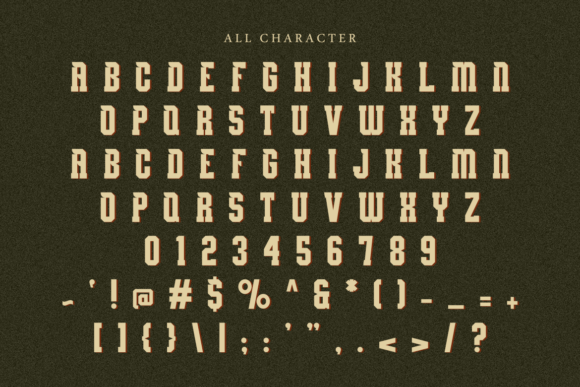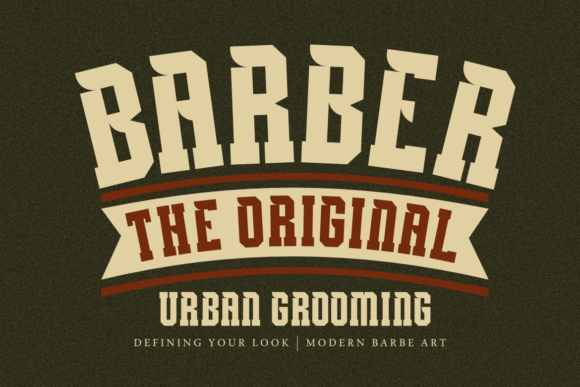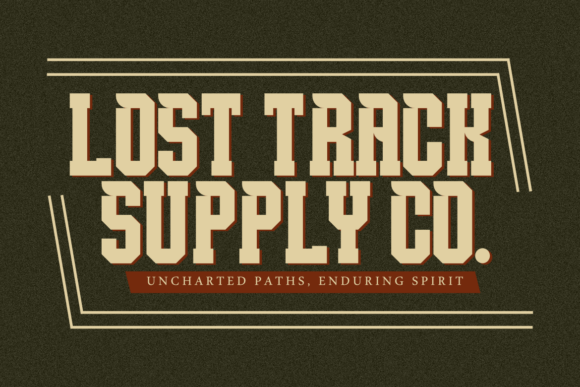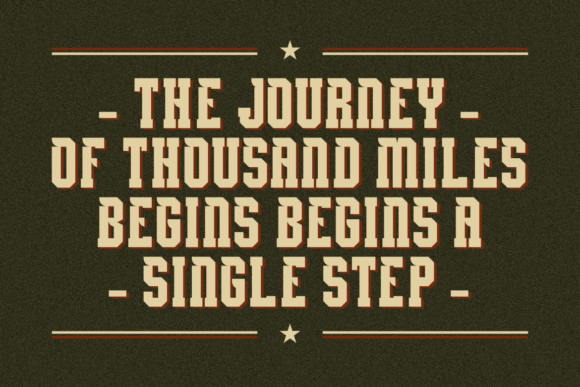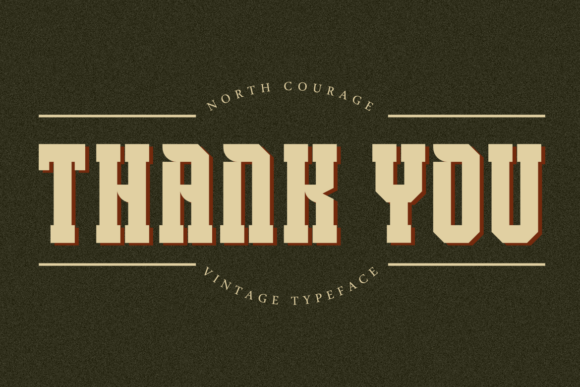
Introduction to North Courage Font
Immerse yourself in the ageless allure of North Courage, a mesmerizing display font brimming with classic elegance.
Expertly fashioned to captivate and bewitch, North Courage spins a retro glamour across a breadth of inventive projects, encompassing everything from fashion-focused apparel to motivational quotes and crucial insignia With its distinctive old-world charm, North Courage casts an arresting influence onto your creations.
Key Features of North Courage Font
Why Choose North Courage Font?
North Courage Font offers exceptional quality and versatility, making it a valuable addition to your design toolkit. Whether you’re creating for personal projects or commercial use, North Courage Font delivers professional results.